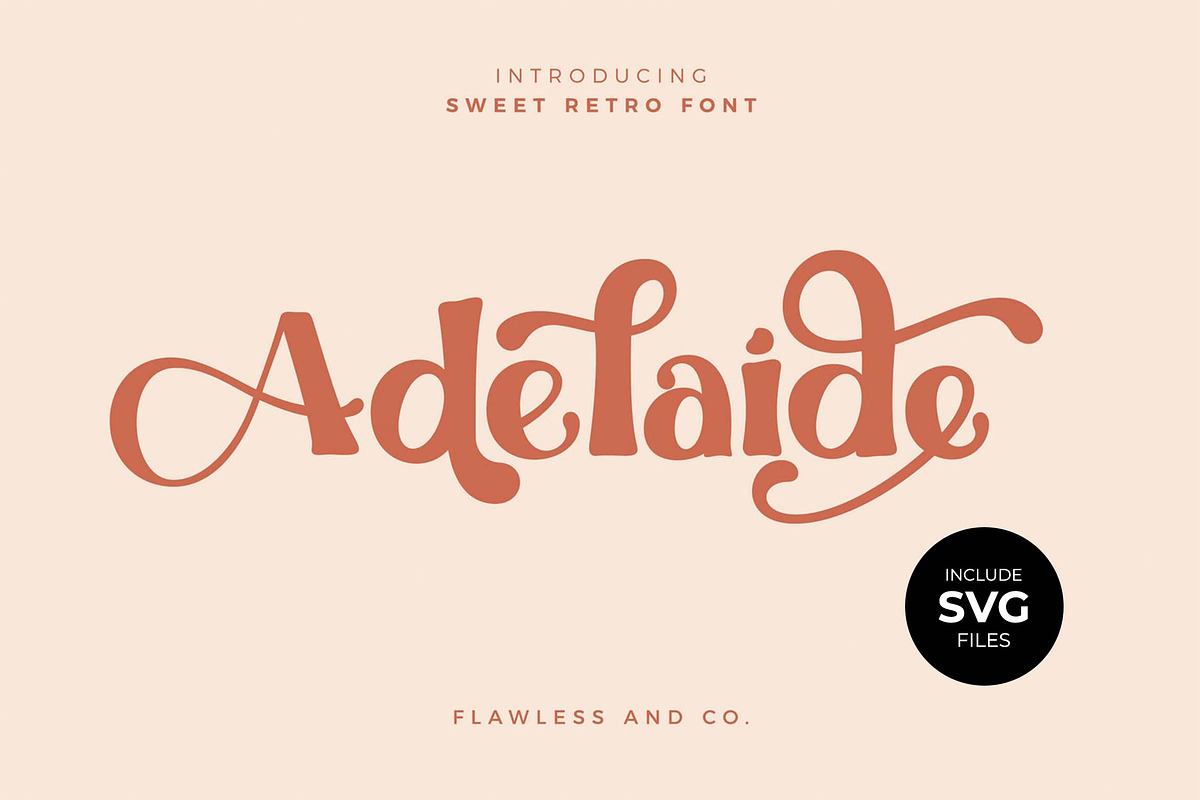
Adelaide – Sweet Retro Font Free Download is a charming and nostalgic typeface that brings the soft, playful essence of vintage design into the modern era. Please note: you must purchase this font for commercial use, but you can test it through a free download. With its rounded serifs, groovy curves, and friendly personality, Adelaide is perfect for retro branding, posters, packaging, T-shirt designs, and feel-good social media content.
Whether you're channeling 70s vibes or creating a cozy, whimsical look, Adelaide – Sweet Retro Font Free Download adds warmth, style, and a touch of fun to any project. It’s easy to read and full of personality—ideal for designers who want to mix nostalgia with creativity. Fully compatible with Adobe Illustrator, Photoshop, Canva, and more. Download it today for personal use and let your typography groove with the sweet charm of Adelaide.